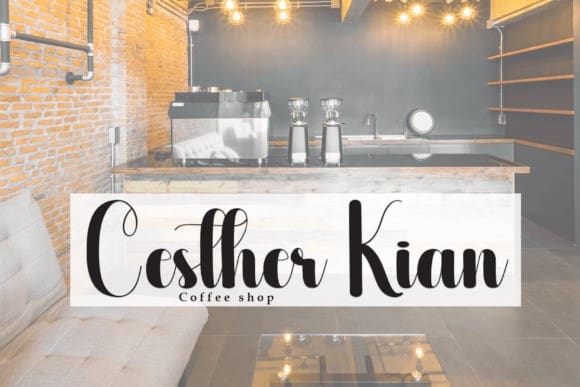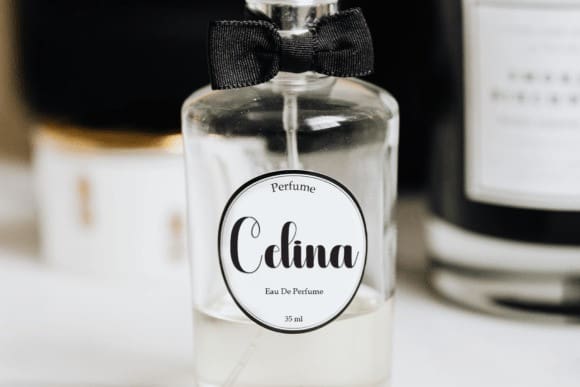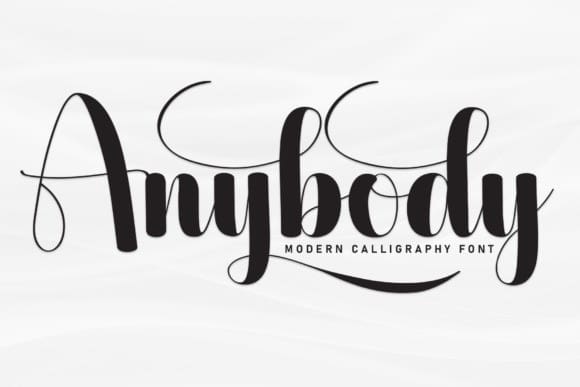
Anybody Script Font
Anybody Script Font is a delicate, elegant and flowing handwritten font. It has beautiful and well balanced characters and as a result, it matches a wide pool of designs. Add it to your most creative ideas and notice how it makes them come alive!